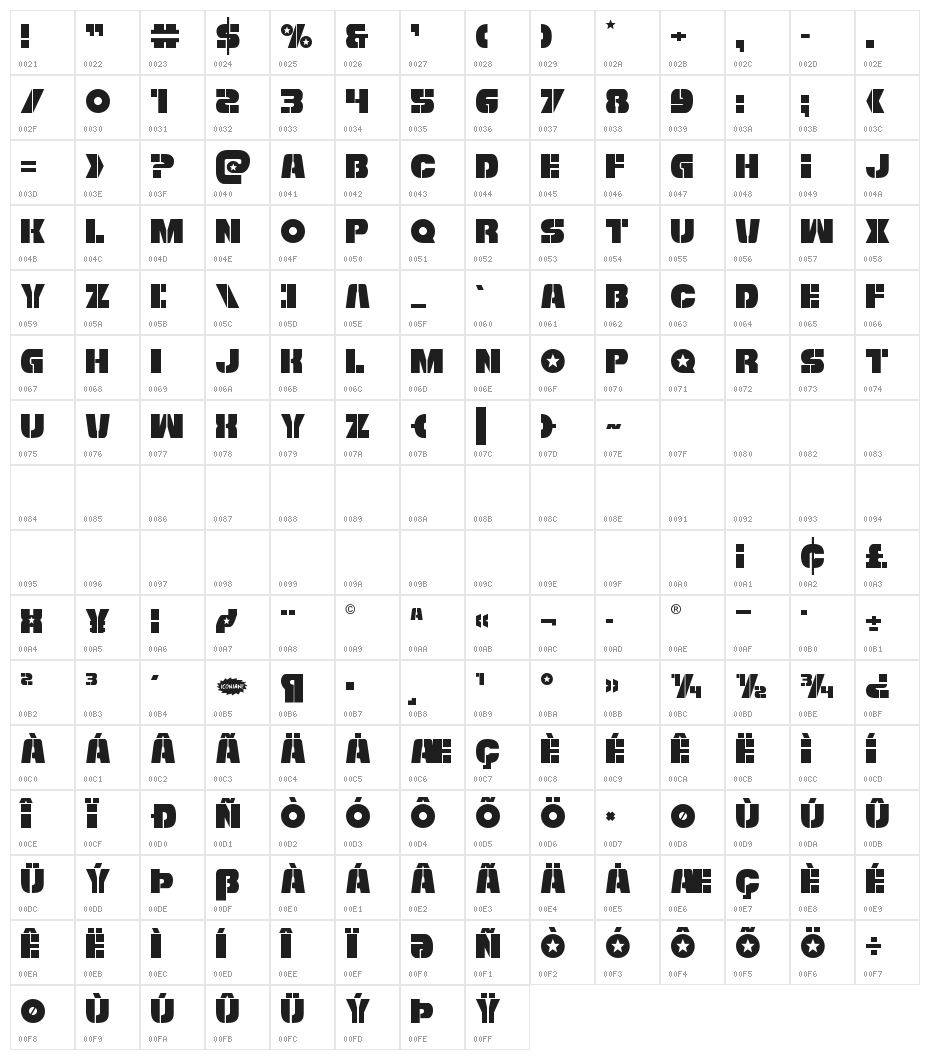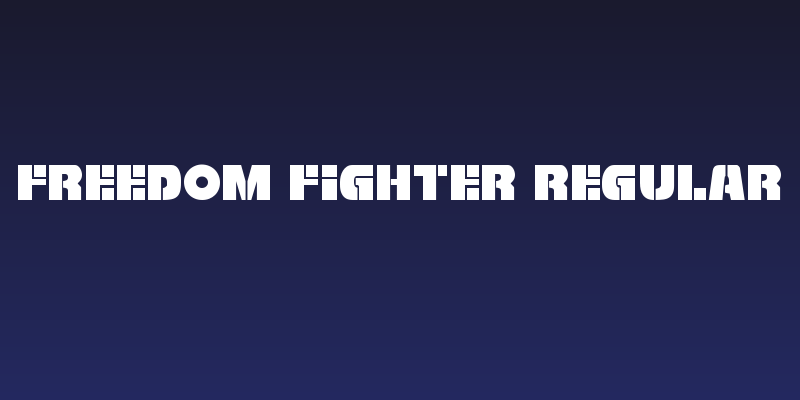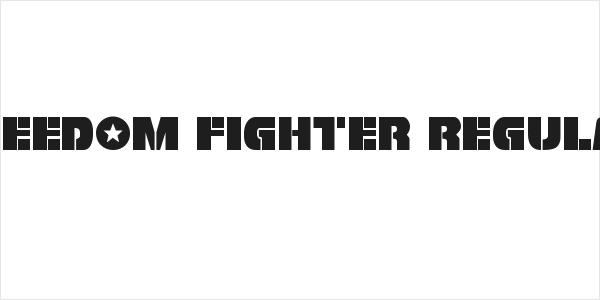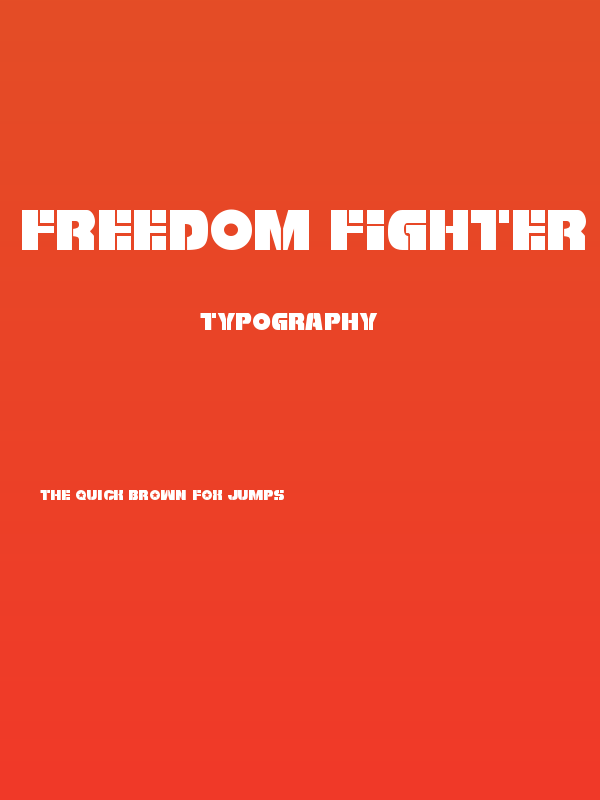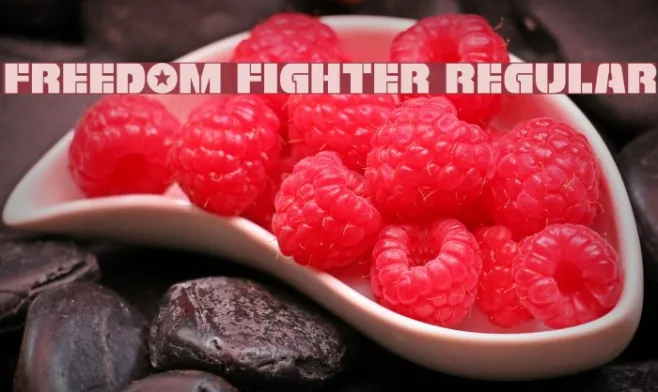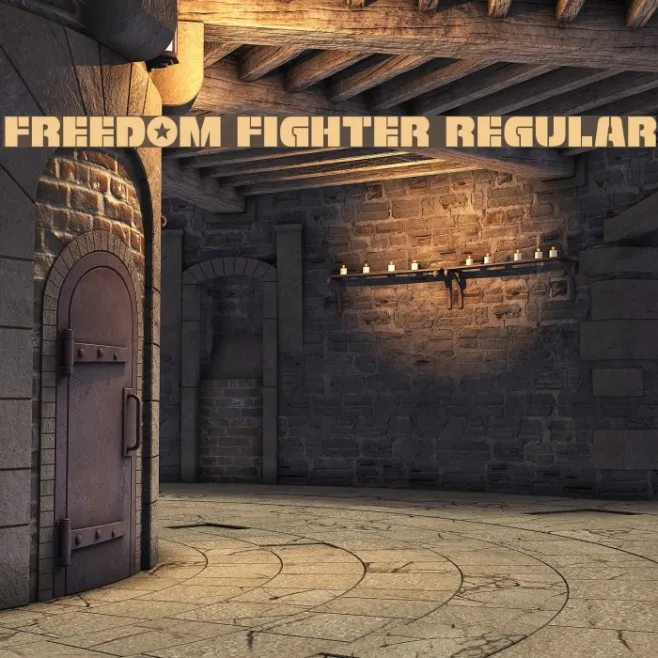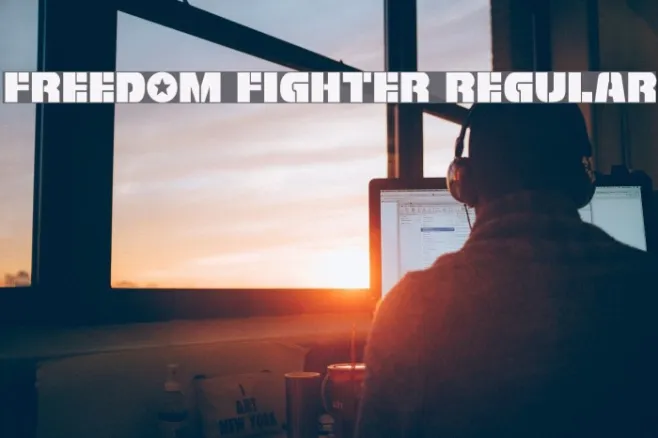
Freedom Fighter Regular Font
Freedom Fighter Regular Description
This bold and impactful font features a strong, geometric design with a distinct stencil-like appearance. The characters are constructed with solid, blocky shapes, creating a sense of strength and stability. The uppercase letters are particularly striking, with some characters incorporating star motifs, adding a unique and decorative touch. The numbers and special characters maintain the bold, geometric style, ensuring consistency across the font. This typeface is ideal for making a statement, with its high visibility and distinctive aesthetic.
| Proposed Projects | Ideal for posters, banners, and branding projects that require a strong, eye-catching typeface. |